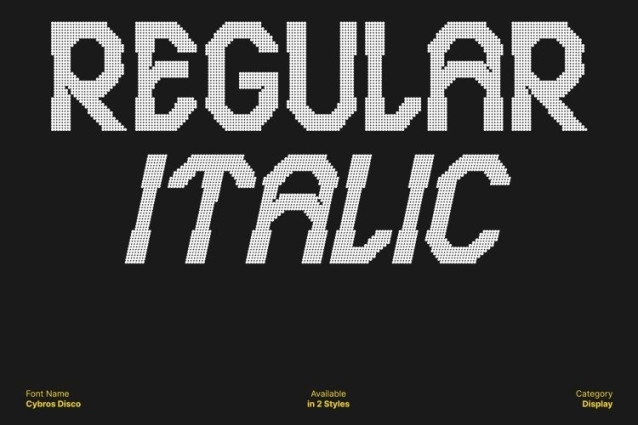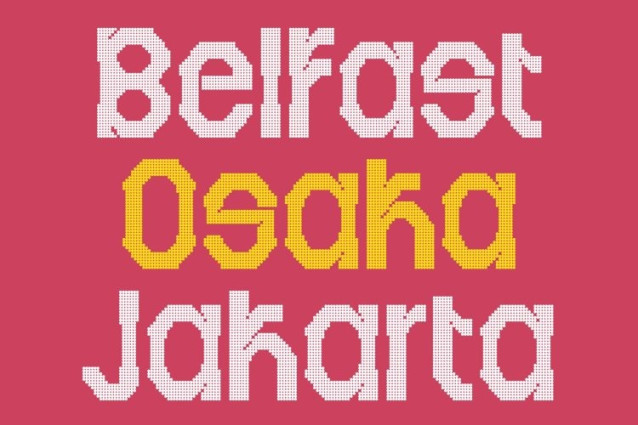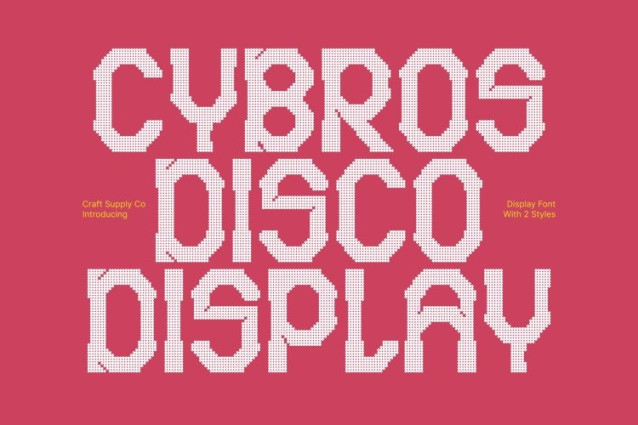
Cybros Disco Font
Cybros Disco Font This is a powerful techno display font designed to command attention. Its bold, sharp-edged characters radiate modern energy and confidence, making it perfect for projects that need a strong visual presence. Every letterform combines futuristic precision with dynamic personality, ensuring your designs stand out immediately.
Disco Effect for Futuristic Flair
The signature disco effect adds a shimmering, energetic touch that amplifies the font’s futuristic style. This subtle yet striking detail gives your text a sense of movement and vibrancy, transforming titles, headlines, and logos into visually engaging focal points.
Versatile for Branding, Logos, and Posters
This font adapts seamlessly to a variety of creative applications. From cutting-edge branding to eye-catching posters and sleek logo designs, the font balances boldness with artistic flair, making it ideal for designers seeking a modern, energetic typeface that leaves a lasting impression.
Perfect for Designers Seeking Modern Energy with Style
Whether used for digital campaigns, music visuals, or promotional materials, merges futuristic aesthetics with disco-inspired vibrancy. Its combination of bold techno forms and sparkling details provides a dynamic, memorable identity for any project, delivering both clarity and impact.